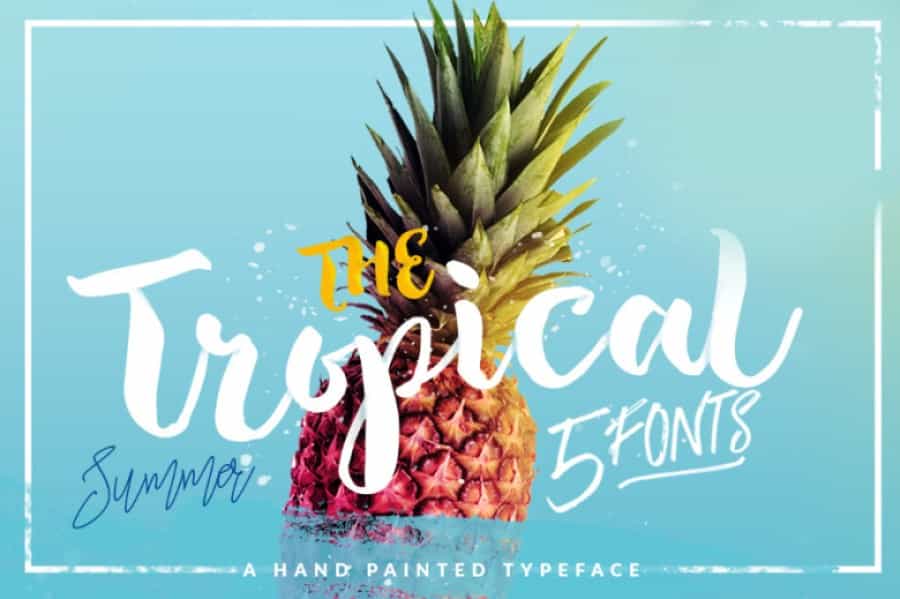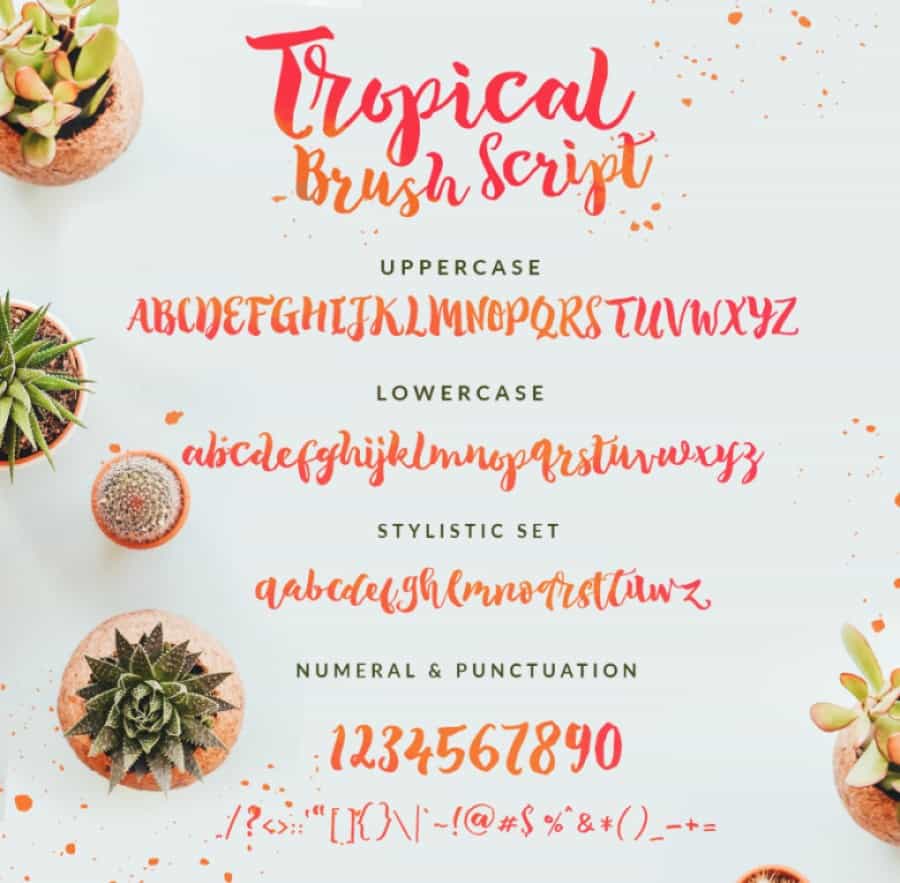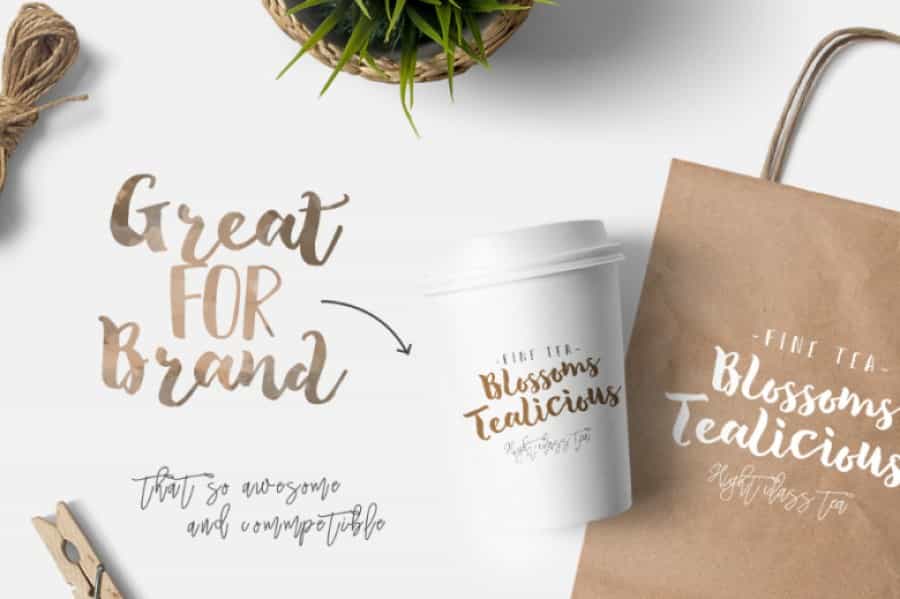
Discover Tropical Brush Font Free, part of the Brush collection—a versatile and unique font perfect for adding a personal touch to your projects. Download it for free and enjoy crafting designs with style, from invitations to social media posts. This font is available exclusively for personal use, giving you the freedom to create without limits. Unlock your creativity with Tropical Brush Font Free today!
Get to know the Tropical 5 Fonts – with the added extras! ! A set containing some professionally selected and finely matched, handmade fonts for use in conjunction to create fabulous hand drawn typographic designs. Incredibly good for coming up with book and movie jackets and T-shirts and cards and logos and posters and… The opentype characteristic provides you with more options when creating.